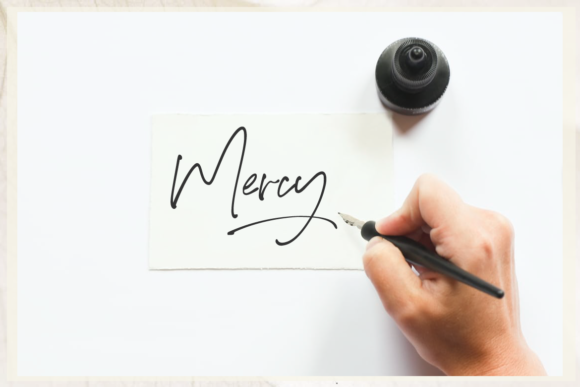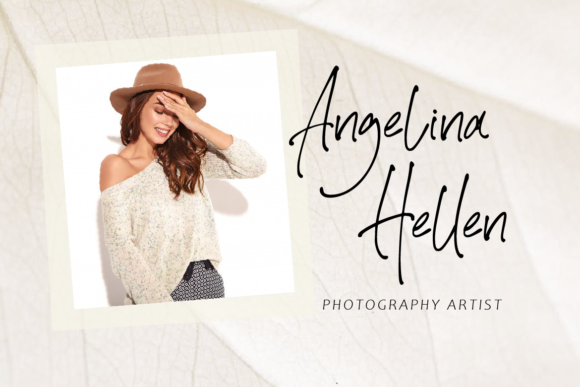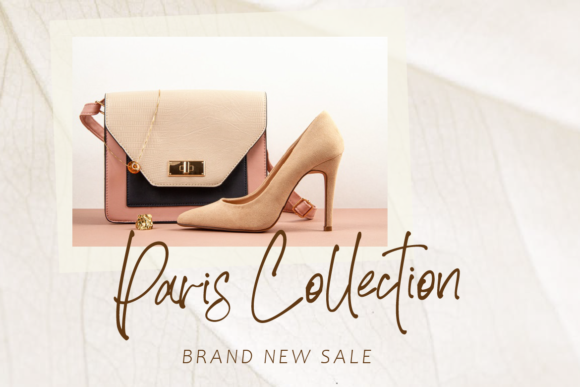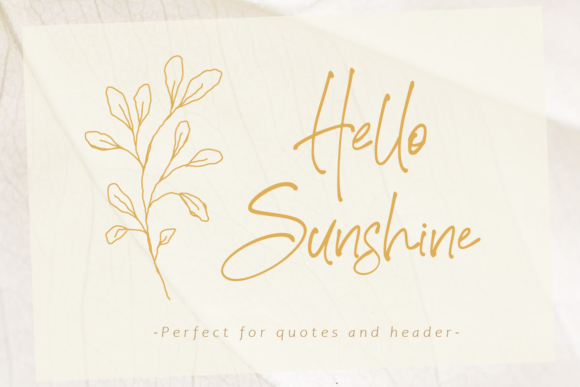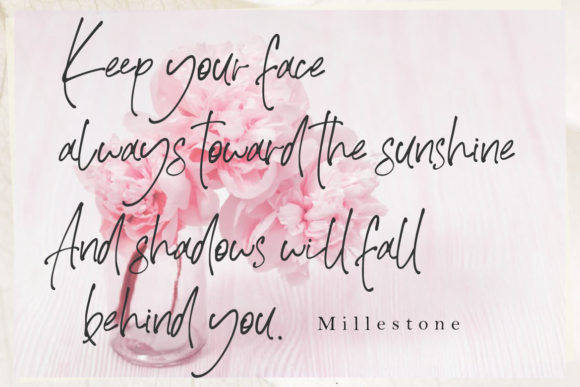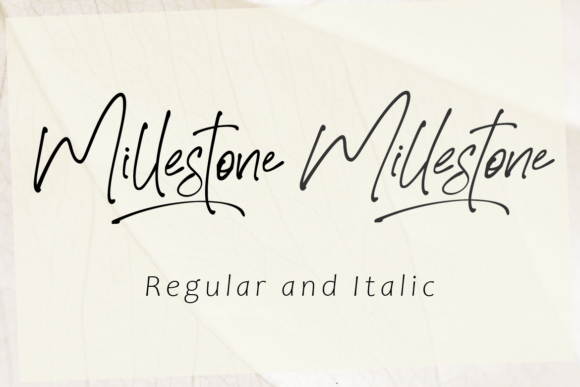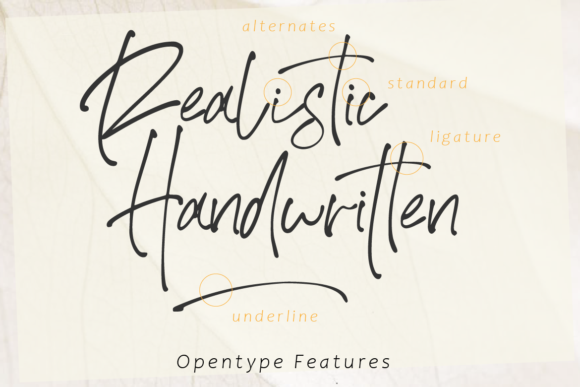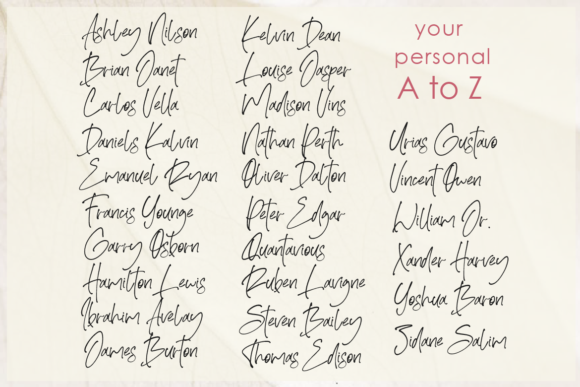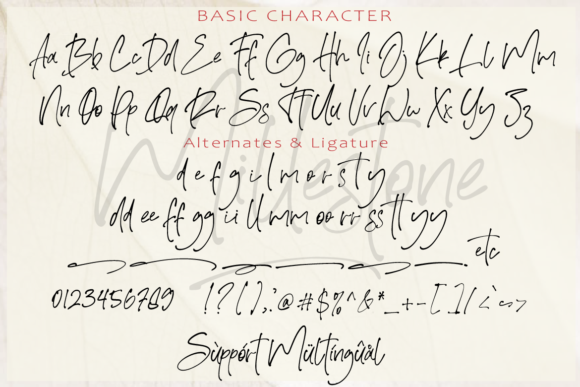
Millestone Font
About Millestone Font
Introducing Millestone, a thin and stylish handwritten font that adds a touch of elegance and personalization to your designs. With its delicate letterforms and refined aesthetic, Millestone is perfect for a variety of projects that require a personalized style.
Whether you’re designing wedding invitations, thank you cards, greeting cards, logos, or any other design that needs a touch of sophistication, Millestone will elevate your creations with its timeless charm.
The thin and stylish nature of Millestone brings a sense of delicacy and grace to your typography. Its slender letterforms create an elegant and refined look, making it ideal for wedding-related designs. Capture the essence of romance and celebration with Millestone as you design stunning wedding invitations that leave a lasting impression on the recipients.
Express gratitude and warmth with thank you cards that reflect your heartfelt appreciation. Millestone’s stylish and personalized style adds a touch of sophistication to your messages, making them even more special and meaningful.
Design beautiful greeting cards that convey your sentiments with elegance and flair. Millestone’s thin strokes and stylish letterforms create a visually pleasing composition that captures attention and evokes emotions.
Create logos that exude professionalism and creativity. Millestone’s refined and stylish appearance adds a unique touch to your branding, making it stand out from the crowd. Whether you’re designing a logo for a wedding-related business or any other industry, Millestone offers versatility and sophistication.
One of the standout features of Millestone is its PUA encoding, which allows you to access all of the glyphs and swashes with ease. This means you can effortlessly incorporate decorative elements, alternate characters, and flourishes to enhance the personalization and uniqueness of your designs. Explore the extensive character set and unleash your creativity to create custom letter combinations that truly reflect your style and vision.
Millestone’s versatility extends to its compatibility with various design software, ensuring a seamless integration into your creative workflow. Whether you prefer working on digital platforms or print materials, Millestone provides a smooth and enjoyable design experience.
The legibility of Millestone ensures that your messages are conveyed with clarity and style. Despite its thin strokes, the letterforms maintain a balance that makes reading effortless and enjoyable. Your audience will appreciate the refined and polished appearance of Millestone, adding an extra layer of professionalism to your designs.
With Millestone, you have the power to create personalized designs that captivate and inspire. Let its thin and stylish handwritten charm be the foundation of your projects, infusing them with a touch of elegance and sophistication.
Experience the beauty and versatility of Millestone as it transforms your designs into works of art. Whether you’re a professional designer or someone who enjoys creating visually stunning projects, Millestone empowers you to express your creativity with finesse and style.
Choose Millestone as your go-to font for designs that require a personalized and stylish touch. Let it be the voice that communicates your message with grace and elegance. With Millestone, your designs will radiate sophistication and create lasting impressions.
Unleash your creativity with Millestone and explore the possibilities it offers. From wedding invitations to logos and beyond, Millestone will add a touch of refinement and personalization to your designs, making them truly exceptional.
Unlock the beauty of Millestone and let it be your companion on your creative journey. Embrace its thin and stylish aesthetic and let it elevate your designs to new heights. Millestone is here to inspire and empower you as you create remarkable pieces of art.
Choose Millestone and let its elegance and sophistication be the cornerstone of your design projects. Whether you’re celebrating love, expressing gratitude, or creating a brand identity, Millestone will bring a touch of refinement and personalization that sets your designs apart. Explore the possibilities and create